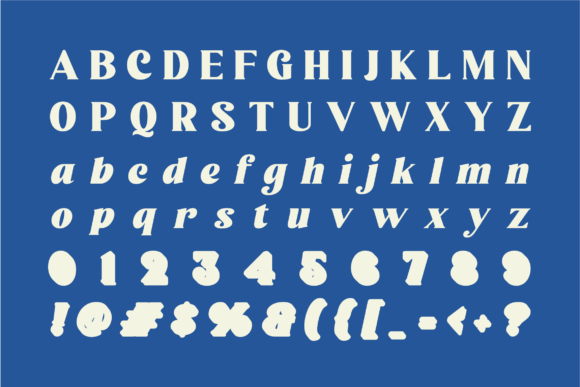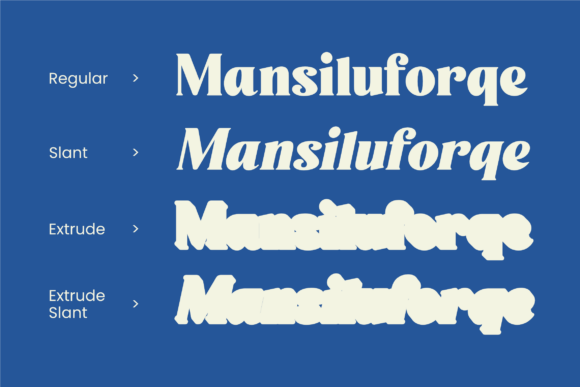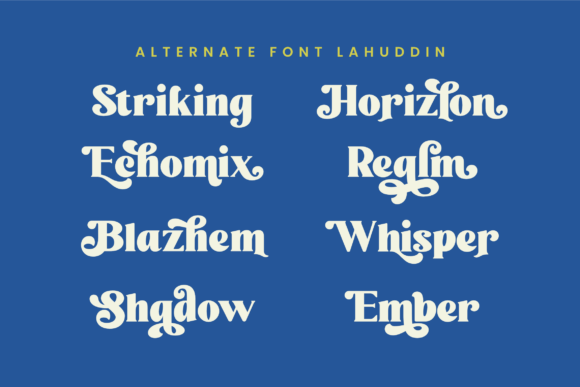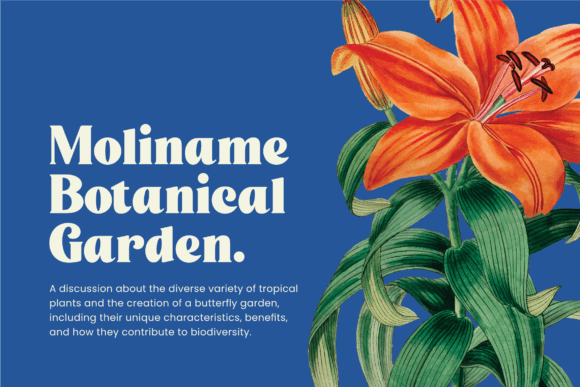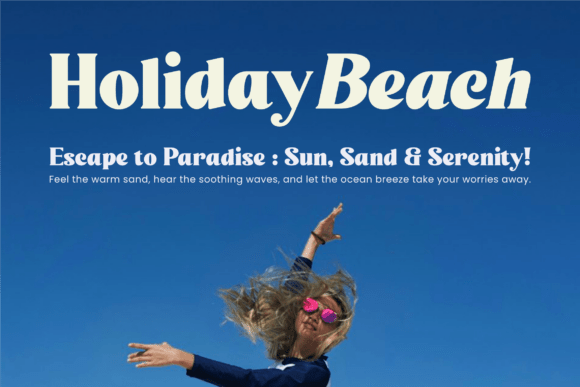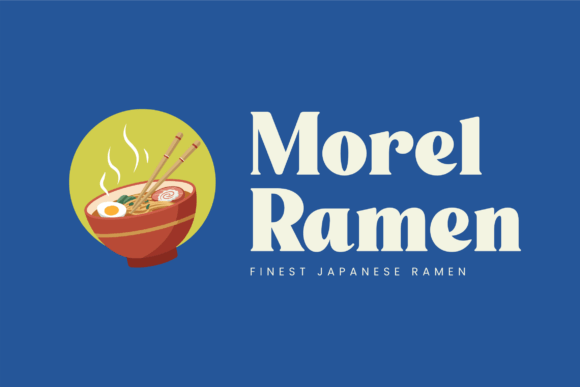
Introduction to Lahuddin Font
Have you ever stumbled upon a design project that sparks pure creativity, only to realize that the perfect font eludes you? You’re not alone. Designers often face this dilemma, searching high and low for the perfect typography to elevate their work. Enter the Lahuddin Font, a game-changing design resource that will revolutionize your creative projects.
With its high-contrast serif display font, Lahuddin Font brings an unparalleled level of elegance and boldness to your designs. Whether you’re crafting luxury branding, editorial layouts, or premium packaging, this font is sure to make a lasting impression. Its expressive alternates and classic charm make it an ideal choice for standout headlines, logos, and posters.
As a valuable addition to any designer’s toolkit, the Lahuddin Font offers effortless access to all glyphs, swashes, and alternate characters, thanks to its PUA encoding. This means you can freely experiment with different design elements, all with a transparent background that allows for seamless integration into your projects.
Key Features of Lahuddin Font
- High-quality font design, ideal for creative projects requiring a unique touch.
- Includes a range of glyphs and characters, making it suitable for various languages and design applications.
- Designed with a high resolution, ensuring crisp and clear text display in print and digital formats.
Honest Review: Lahuddin Font
I recently stumbled upon the Lahuddin Font, and I must say, it’s a solid addition to any designer’s toolkit. The Lahuddin Font is a versatile, high-quality font that’s perfect for a wide range of creative projects.
- What works well: ✨ The Lahuddin Font features a sleek, modern design that’s easy to read and versatile enough to work well in various contexts.
- What works well: ✨ The font includes a transparent background, making it ideal for use on images, illustrations, or other design elements.
While the Lahuddin Font is a great resource, there are a few limitations to consider. ⚠️ The font may not be suitable for use in extremely formal or traditional settings, as its modern design may not fit the tone.
Overall, I’m impressed with the Lahuddin Font. It’s a high-quality, versatile font that’s perfect for a wide range of creative projects. Whether you’re working on a design project or simply looking for a new font to add to your collection, the Lahuddin Font is definitely worth checking out.
Using Lahuddin Font in Creative Projects
What is the Lahuddin Font’s font size and character set?
The Lahuddin Font has a range of font sizes and a comprehensive character set, including uppercase and lowercase letters, numbers, and special characters. This makes it suitable for use in a variety of design applications, from body text to display headings. However, please note that the font’s character set may not be as extensive as some other fonts, and